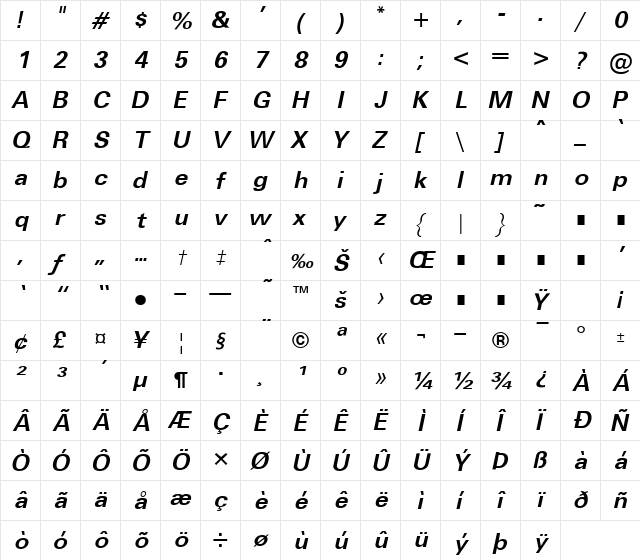
Unv Bold Italic
Design Context for Unv Typeface
Unv takes a measured approach to typography — its balanced proportions and neutral character make it a reliable workhorse for both digital and print work. The dynamic lean of this cut emphasises speed and emphasis in any layout. Its bold stroke weight gives it real presence on the page.
Pro Tip: Use Unv for emphasis, pull quotes, and subheadings where its slanted energy can add rhythm to the layout.